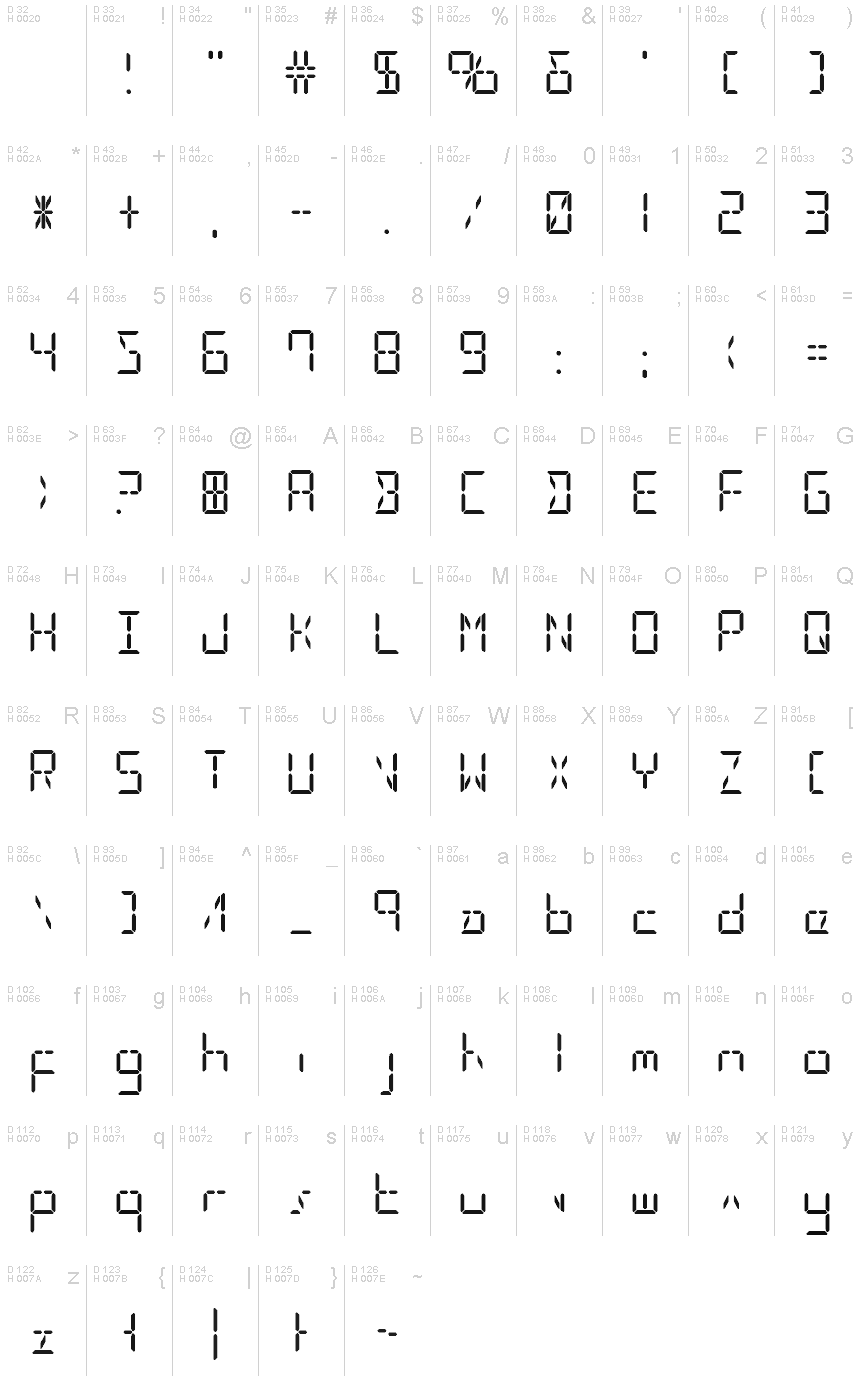
LED Sled Straight
The LED Sled Straight font from Iconian Fonts by Daniel Zadorozny exudes a captivating digital aesthetic. This display typeface boasts sharp, clean lines and a minimalist, futuristic appearance that immediately grabs attention. The bold, geometric letterforms convey a sense of strength and technological sophistication, making it a striking choice for a wide range of digital applications.
Versatile and impactful, the LED Sled Straight font lends itself well to branding, UI design, gaming interfaces, and any project that requires a distinctive, high-impact typographic style. Its clear legibility and unique character shapes make it an excellent selection for eye-catching headlines, signage, or other prominent design elements that demand a bold, attention-grabbing presence.